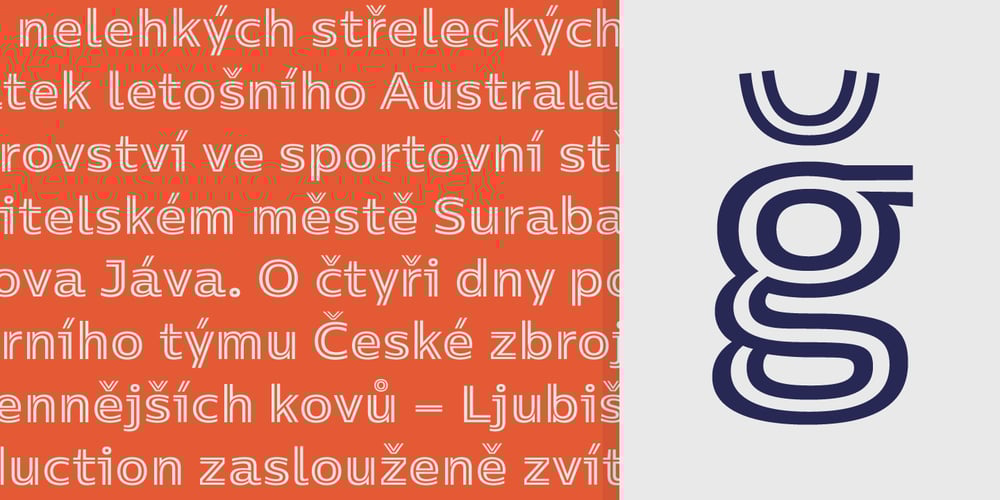
Centrale Sans Inline Font Family was designed by Alexander Nedelev, Veronika Slavova and published by Typedepot. Centrale Sans Inline contains 4 styles and family package options. A humanist design typeface incorporating elements from the more rationally constructed grotesque typefaces. Its characteristics are relatively large x-height and open apertures. The overall effect suggests approachability without the sentimentality carried by some of the more authentic humanist designs – contemporary and precise.